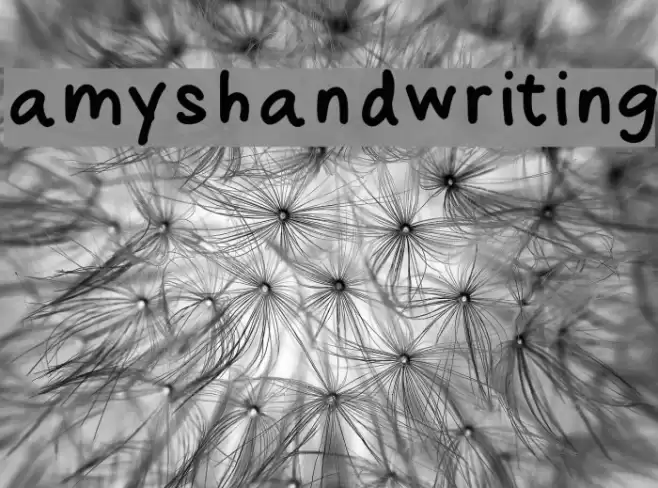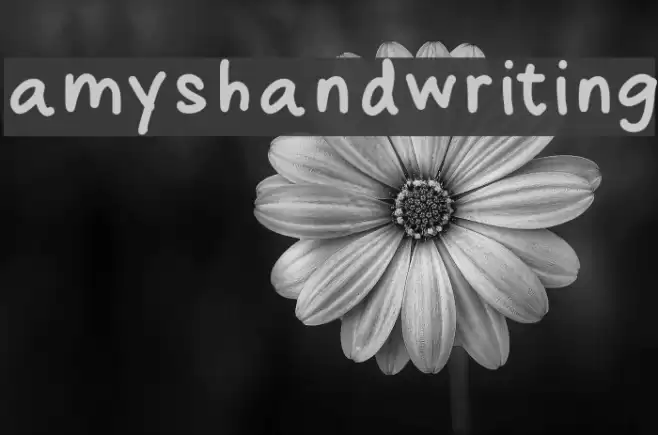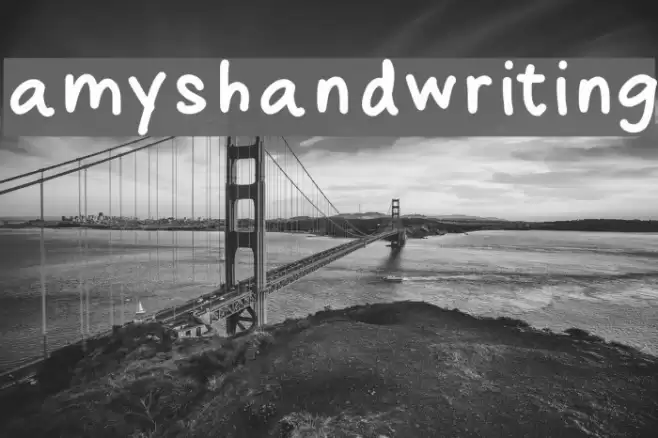
amyshandwriting Font
amyshandwriting Description
This font exudes a playful and casual vibe, reminiscent of handwritten notes with a personal touch. The characters are rounded and slightly irregular, giving them a friendly and approachable appearance. The uppercase letters maintain a consistent height, while the lowercase letters vary slightly, adding to the informal style. The numbers are bold and clear, ensuring readability. Special characters are creatively styled, matching the overall whimsical theme. This font is perfect for projects that require a personal or informal tone, such as greeting cards, invitations, or children's books.
A playful, handwritten-style font with rounded, informal characters from Handwritten fonts.
- Proposed Projects: Ideal for greeting cards, invitations, children's books, and personal notes.
- Overall Style: Casual
- Use Case: Headlines, Informal text, Creative projects